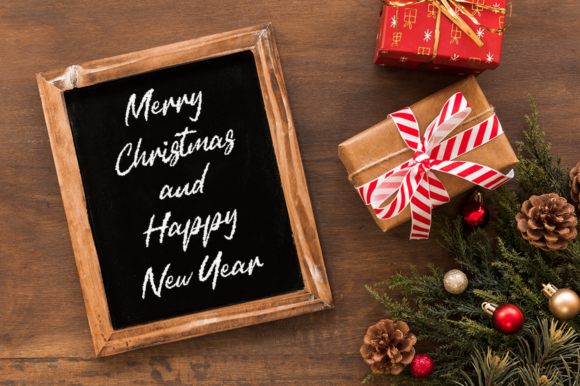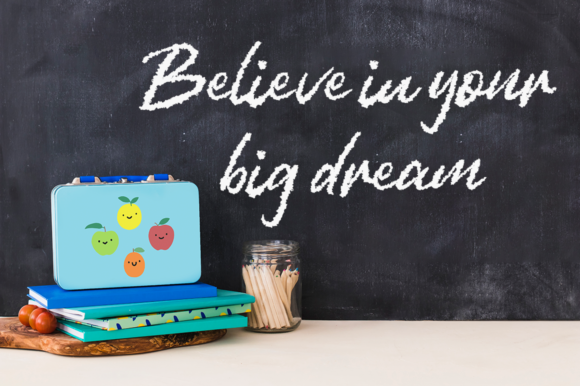
Chalk Talks Font
db-ku.com - Script & Handwritten -- Chalk Talks is a brushed handwritten font. No matter the topic, this font will be an incredibly asset to your fonts’ library, as it has the potential to elevate any creation.